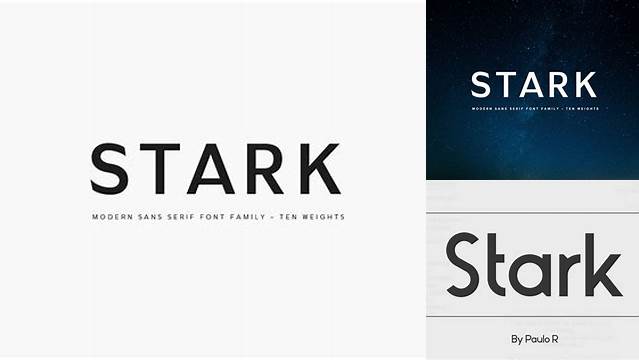
Stark Modern Sans Serif Font: Free Download
Hey guys! Are you on the hunt for a sleek and contemporary font to elevate your designs? Look no further! In this article, we're diving deep into the world of stark modern sans serif fonts and how you can download them for free. We'll explore everything from their unique characteristics to how you can use them to make your projects shine. So, buckle up and let's get started!
1. Understanding Stark Sans Serif Fonts
Let's kick things off by getting a clear understanding of what exactly stark sans serif fonts are. These fonts are characterized by their clean lines, minimalist design, and the absence of serifs (the little decorative strokes at the ends of letters). Think of fonts like Helvetica, Arial, and Open Sans – they all fall into the sans serif category. But what makes a sans serif font "stark"? Well, it often implies a strong, bold, and somewhat assertive presence. These fonts are designed to grab attention and convey a sense of modernity and sophistication. The beauty of stark modern sans serif fonts lies in their versatility. They can be used in a wide range of applications, from website headers and body text to branding materials and print designs. Their clean aesthetic ensures readability while adding a touch of elegance to your projects. When you're working on a design that needs to feel current and impactful, a stark sans serif is often the way to go. They bring a sense of clarity and confidence to your message, making sure it resonates with your audience. Whether you're creating a logo, designing a website, or putting together a presentation, choosing the right stark sans serif font can make all the difference. They can help you establish a strong visual identity and ensure that your content is both legible and visually appealing. In the world of typography, the stark sans serif font is a powerhouse of modern design, offering a blend of functionality and aesthetic appeal that's hard to beat.
2. The Appeal of Modern Sans Serif
Modern sans serif fonts have a certain je ne sais quoi that makes them incredibly appealing in today's design landscape. Their minimalist nature aligns perfectly with the current trends that favor clean, uncluttered aesthetics. Think about it – we live in a world inundated with information, and designs that are easy to digest and understand are the ones that truly stand out. The appeal of modern sans serif lies in its ability to communicate effectively without unnecessary frills. These fonts are straightforward, legible, and project an air of professionalism and modernity. They’re the go-to choice for brands that want to convey trust, innovation, and clarity. Whether you're designing a website, creating a marketing campaign, or developing a mobile app, modern sans serif fonts provide a versatile foundation. They work equally well in headlines, body text, and captions, ensuring a cohesive visual experience across different platforms and media. Their clean lines and open forms make them particularly well-suited for digital applications, where readability is paramount. Moreover, modern sans serif fonts often evoke a sense of forward-thinking and progress. They're the typographic equivalent of a well-tailored suit – sharp, confident, and always in style. By choosing a modern sans serif, you're not just selecting a font; you're making a statement about your brand's values and vision. This is why so many leading companies and startups alike gravitate towards these fonts – they represent a commitment to simplicity, functionality, and a sleek, contemporary look. So, if you're aiming for a design that feels current, professional, and highly readable, the appeal of modern sans serif is undeniable.
3. Characteristics of Stark Fonts
So, what exactly are the defining characteristics of stark fonts? These fonts aren't just your run-of-the-mill sans serifs; they have a certain edge and presence that sets them apart. When we talk about stark fonts, we're often referring to those that possess a bold, impactful, and almost assertive quality. Think of a font that commands attention without being overly decorative or fussy. One of the key characteristics of stark fonts is their clean, unadorned letterforms. They typically feature even strokes, minimal contrast, and a geometric structure. This lends them a sense of clarity and precision, making them ideal for conveying information in a straightforward manner. The stark nature also comes from their weight and density. These fonts often have a substantial presence on the page or screen, with thicker strokes and a strong visual impact. This makes them perfect for headlines, titles, and other prominent elements where you want to make a statement. Furthermore, stark fonts tend to have a contemporary feel. They often incorporate design elements that reflect current typographic trends, such as slightly condensed proportions, open counters (the enclosed spaces within letters), and a generally minimalist aesthetic. This ensures that they look fresh and relevant in today's design landscape. Another important aspect of the characteristics of stark fonts is their versatility. While they're bold and impactful, they're also highly legible and can be used in a variety of applications. From branding and advertising to web design and print materials, stark fonts offer a reliable and stylish option for any project that demands a strong visual presence. Ultimately, the characteristics of stark fonts boil down to their ability to convey strength, modernity, and clarity. They're a powerful tool in any designer's arsenal, perfect for making a lasting impression.
5. Popular Free Stark Sans Serif Fonts
Alright, let's dive into some popular free stark sans serif fonts that you can start using right away! There's a plethora of options out there, but I've handpicked a few that are known for their quality, versatility, and modern aesthetic. You want to make sure that when you’re downloading fonts, they aren't just free, but also perfect for your project, right? First on the list is Open Sans. This font is a classic for a reason – it's incredibly legible, clean, and works well in a variety of applications. From body text to headlines, Open Sans is a reliable choice for any design that needs a touch of modernity. Next up, we have Lato. Lato has a slightly warmer feel than Open Sans, with semi-rounded details that give it a friendly yet professional vibe. It’s another fantastic option for both print and digital projects. Roboto is another crowd-pleaser. This font is Google’s system font for Android, and it's known for its clean lines and geometric structure. It’s highly readable and works especially well on screens, making it ideal for websites and apps. Another standout is Montserrat. This font has a bolder, more assertive presence, making it perfect for headlines and titles. It’s inspired by the urban typography of Buenos Aires and has a distinctively modern feel. Don't forget about Raleway. This elegant sans serif has a slightly condensed form and a sophisticated look. It’s great for adding a touch of class to your designs, while still maintaining a clean and modern aesthetic. Poppins is also worth checking out. This geometric sans serif has a playful yet professional feel, making it versatile enough for a wide range of projects. And last but not least, Nunito is a rounded sans serif that’s perfect for designs that need a friendly and approachable touch. It’s especially popular for user interfaces and branding materials. These popular free stark sans serif fonts are just the tip of the iceberg, but they're a great starting point for building your font library. They’re all available for free download, so you can start experimenting and finding the perfect font for your next project right away!
7. Using Stark Fonts in Web Design
When it comes to using stark fonts in web design, you're making a choice that can significantly impact the user experience and the overall aesthetic of your site. Stark sans serif fonts are a fantastic choice for web design because they offer a clean, modern look that's easy to read on screens. In the digital realm, readability is king. A stark font with clear, well-defined letterforms ensures that your content is accessible and enjoyable to read, no matter the device or screen size. This is crucial for keeping visitors engaged and preventing them from clicking away due to eye strain. One of the most effective ways to use stark fonts in web design is for headings and titles. Their bold, impactful nature makes them perfect for grabbing attention and creating a strong visual hierarchy. By using a stark sans serif for your headings, you can guide the reader through your content and make it easy for them to scan and understand the main points. But stark fonts aren't just for headlines. They can also work beautifully for body text, especially if you choose a font with good legibility at smaller sizes. Look for fonts with open counters (the enclosed spaces within letters) and a generous x-height (the height of the lowercase letters) to ensure that your text is easy to read even in long paragraphs. Another key consideration when using stark fonts in web design is pairing them with other fonts. A classic combination is to pair a stark sans serif with a serif font for contrast. This can create a visually interesting and balanced look, with the sans serif providing a modern touch and the serif adding a touch of tradition. When implementing stark fonts on your website, make sure to optimize them for web use. This means using web font formats like WOFF and WOFF2, which are designed to load quickly and efficiently. You can also use CSS to control the font size, line height, and letter spacing, ensuring that your text looks its best on all devices. In a nutshell, using stark fonts in web design is all about creating a clean, readable, and modern experience for your visitors. By choosing the right font and implementing it thoughtfully, you can elevate your website's design and keep your audience engaged.
8. Stark Fonts for Branding
Let's talk about stark fonts for branding. Your brand's visual identity is crucial, guys, and the fonts you choose play a massive role in how your brand is perceived. Stark sans serif fonts are a fantastic option for branding because they convey a sense of modernity, clarity, and confidence – all qualities that can help your brand stand out in today's competitive landscape. When you're selecting a font for your brand, you're not just picking something that looks nice; you're choosing a typeface that will represent your brand's personality and values. Stark fonts often communicate a sense of strength and simplicity, making them ideal for brands that want to be seen as trustworthy, innovative, and professional. One of the key advantages of using stark fonts for branding is their versatility. They work well in a wide range of applications, from logos and websites to marketing materials and social media graphics. This consistency helps to create a cohesive brand identity that resonates with your audience. For your logo, a stark sans serif can provide a clean and memorable look. A bold, well-crafted font can make your logo stand out and ensure that it's legible in various sizes and formats. This is especially important for digital applications, where your logo may be displayed on screens of all sizes. On your website, stark fonts can help to create a user-friendly and visually appealing experience. By using a stark sans serif for your headings and body text, you can ensure that your content is easy to read and understand. This is crucial for keeping visitors engaged and encouraging them to explore your site. In your marketing materials, stark fonts can help to convey a consistent brand message. Whether you're designing brochures, advertisements, or social media posts, using the same stark sans serif will help to reinforce your brand identity and make your message more impactful. When using stark fonts for branding, it's important to consider your target audience and the overall tone you want to convey. A stark font might be perfect for a tech startup or a financial institution, but it might not be the best choice for a brand that wants to be seen as warm and playful. In short, stark fonts for branding are a powerful tool for creating a modern, confident, and consistent brand identity. By choosing the right font and using it strategically, you can make a lasting impression on your audience.
9. Pairing Stark Fonts with Other Typefaces
Alright, let's dive into the art of pairing stark fonts with other typefaces. This is where the magic happens, guys, because the right font pairing can elevate your design from good to amazing. Combining stark sans serif fonts with other typefaces is all about creating visual harmony and contrast. You want to choose fonts that complement each other, creating a balanced and engaging design. One of the most classic pairings is a stark sans serif with a serif font. The contrast between the clean, modern lines of the sans serif and the traditional, elegant serifs can create a visually appealing juxtaposition. For example, you might pair a bold stark sans serif like Montserrat with a classic serif like Garamond for a sophisticated and readable look. Another popular approach is to pair different weights and styles within the sans serif family. You could use a bold stark sans serif for headings and a lighter weight of the same font for body text. This creates a cohesive look while still providing visual hierarchy. When pairing stark fonts with other typefaces, it's important to consider the overall tone and message you want to convey. A stark sans serif paired with a script font can create a more playful and informal look, while a stark sans serif paired with a slab serif can convey a sense of strength and stability. Think about the personality of each font and how it aligns with your brand or design project. It's also a good idea to limit the number of fonts you use in a single design. Too many fonts can create a cluttered and confusing look. A good rule of thumb is to stick to two or three fonts at most. When pairing stark fonts with other typefaces, pay attention to the details. Look at the x-height (the height of the lowercase letters), the letter spacing, and the overall weight of each font. You want to choose fonts that have similar proportions and spacing to ensure a cohesive look. Finally, don't be afraid to experiment! Font pairing is an art, and it takes practice to develop a good eye. Try different combinations and see what works best for your project. There are plenty of online resources and tools that can help you find great font pairings, so don't hesitate to explore and get creative. In short, pairing stark fonts with other typefaces is all about creating visual harmony and contrast. By choosing fonts that complement each other and paying attention to the details, you can create stunning designs that capture attention and convey your message effectively.
17. Condensed Stark Sans Serifs
18. Extended Stark Sans Serifs
19. Bold Stark Fonts
20. Light Stark Fonts
21. Medium Stark Fonts
22. Stark Fonts in Logo Design
23. Stark Fonts in UI Design
24. Stark Fonts for Mobile Apps
25. Stark Fonts for Presentations
26. The Future of Stark Sans Serif Fonts
27. Stark Fonts vs. Other Sans Serifs
28. Maintaining Font Consistency with Stark Fonts
29. The Psychology of Stark Fonts
30. Best Practices for Using Stark Fonts